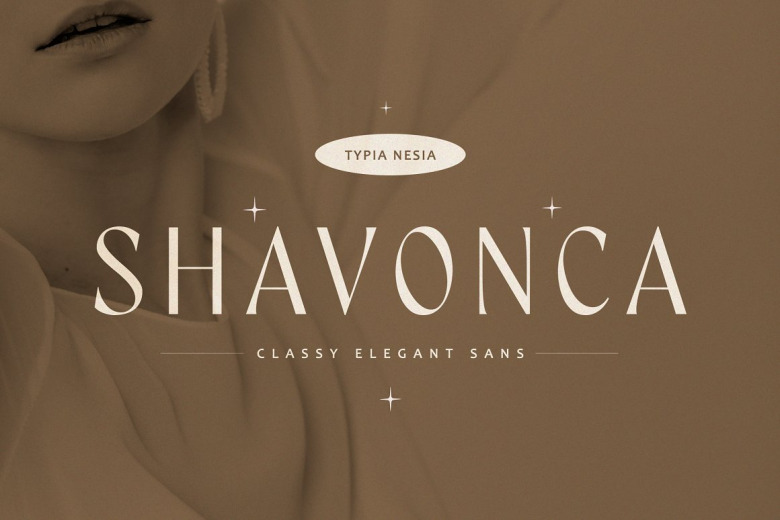
Shavonca Font
Shavonca Modern Beauty Classy Elegant Sans Serif Typeface – Fancy Vintage Classic Light Font. — —Shavonca also supported with some alternate and ligatures, you can use it as type into one of your need typographic design. — perfect for any design needs : logo, branding, modern advertising design, retro and vintage look, holiday and travel design (postcard / poster / stamp), apparel print badge label type inspired with punk rock styles from 70s to 90s. fashion photoshoot editorials based on modern pop culture references and visual trending things in nowadays. or even works of back-to-school creative industry.
Shavonca Sans Serif Font